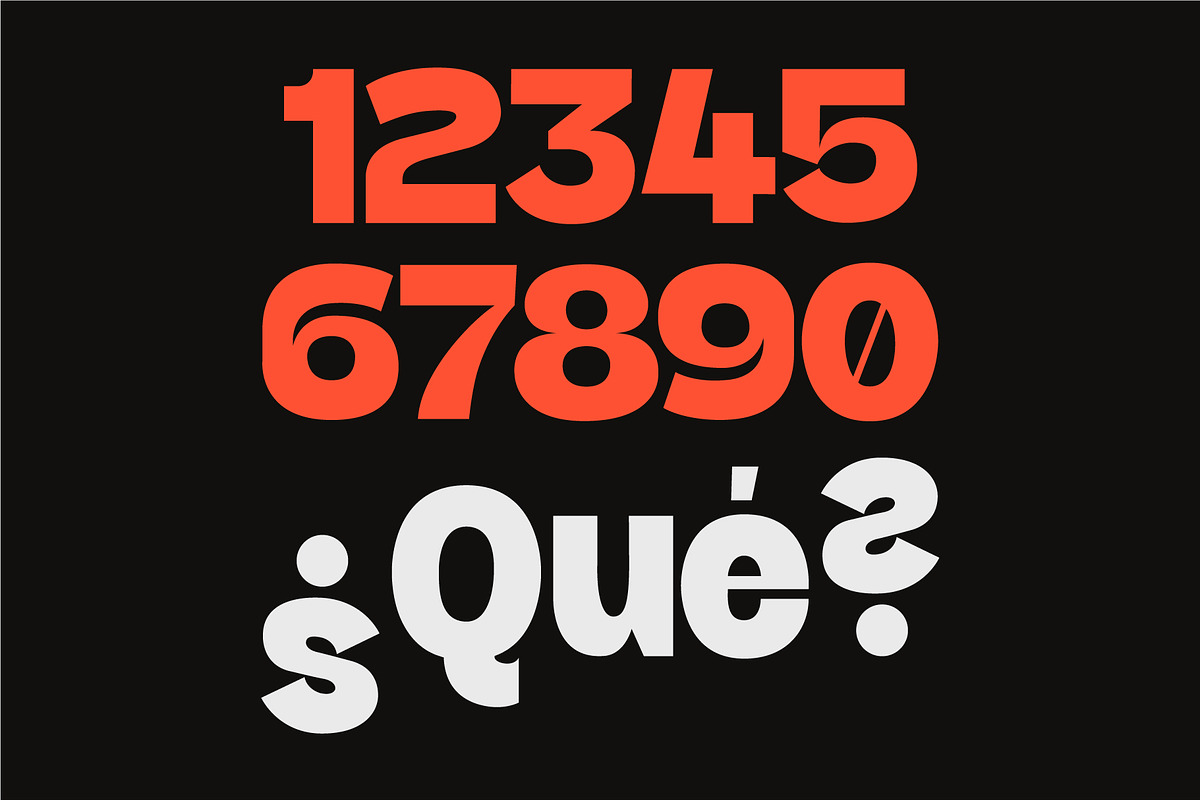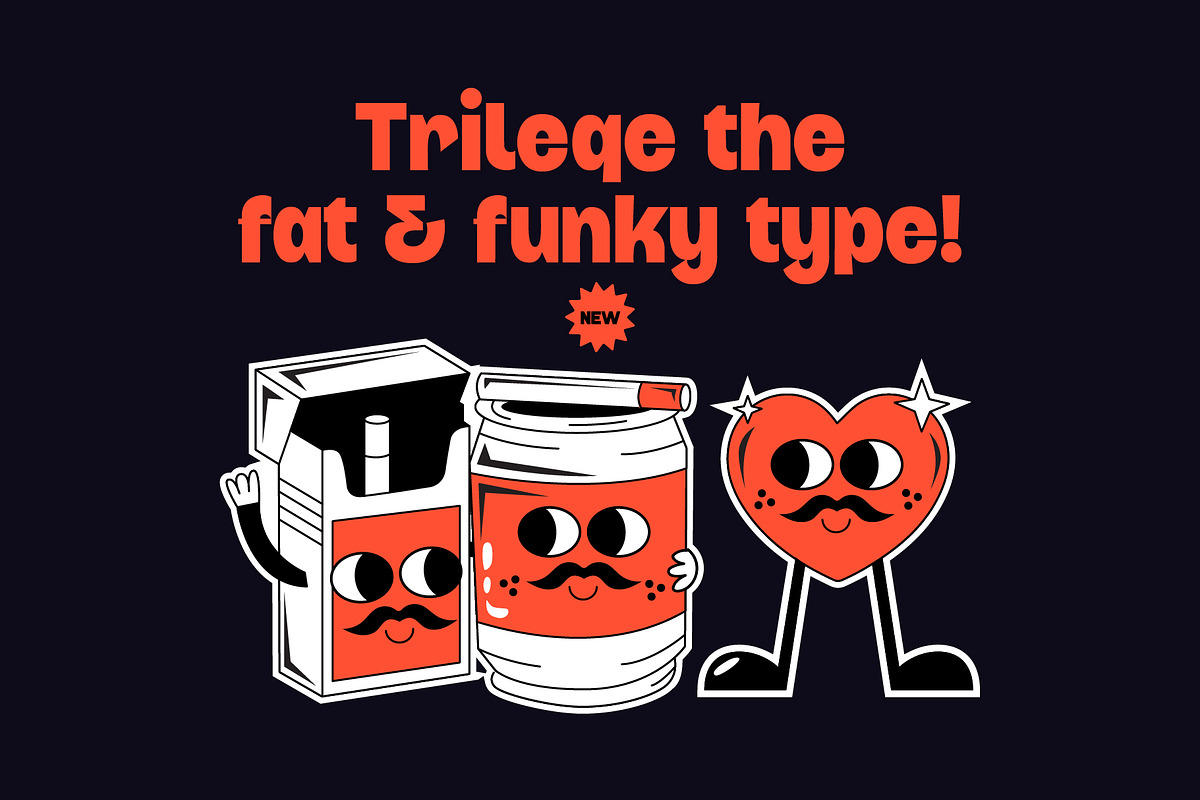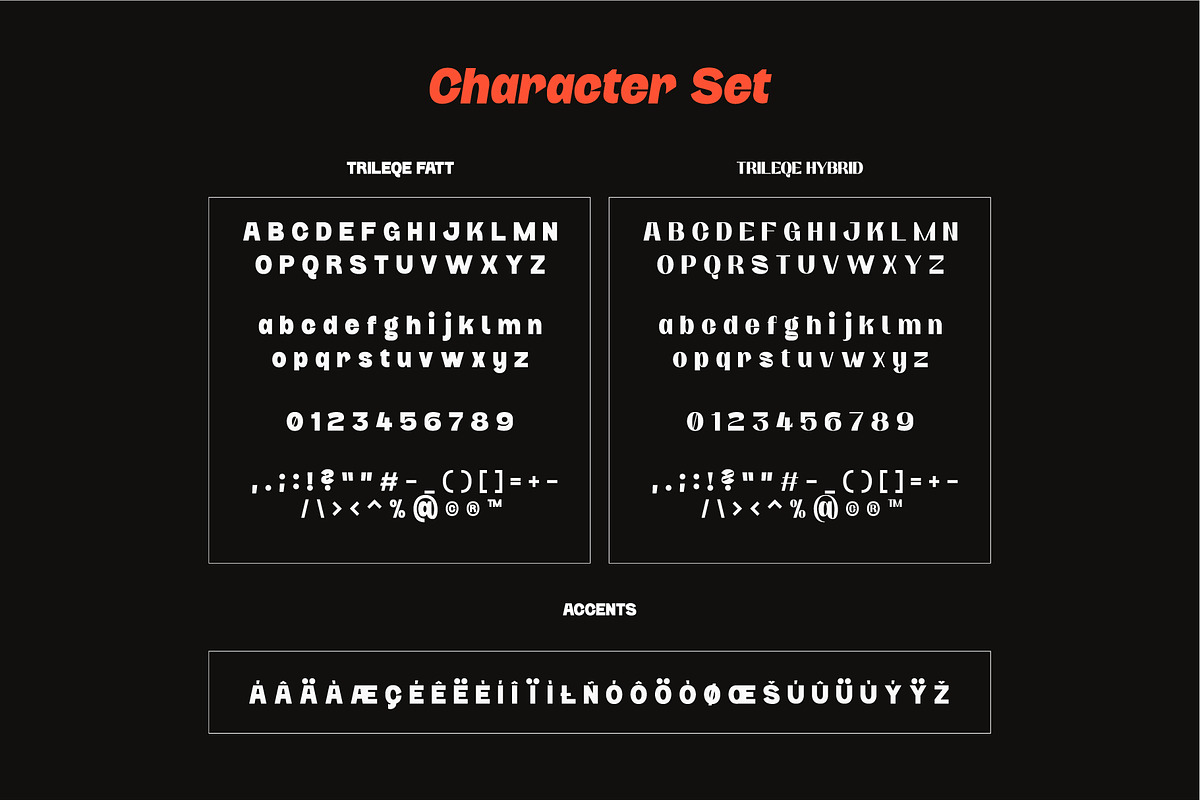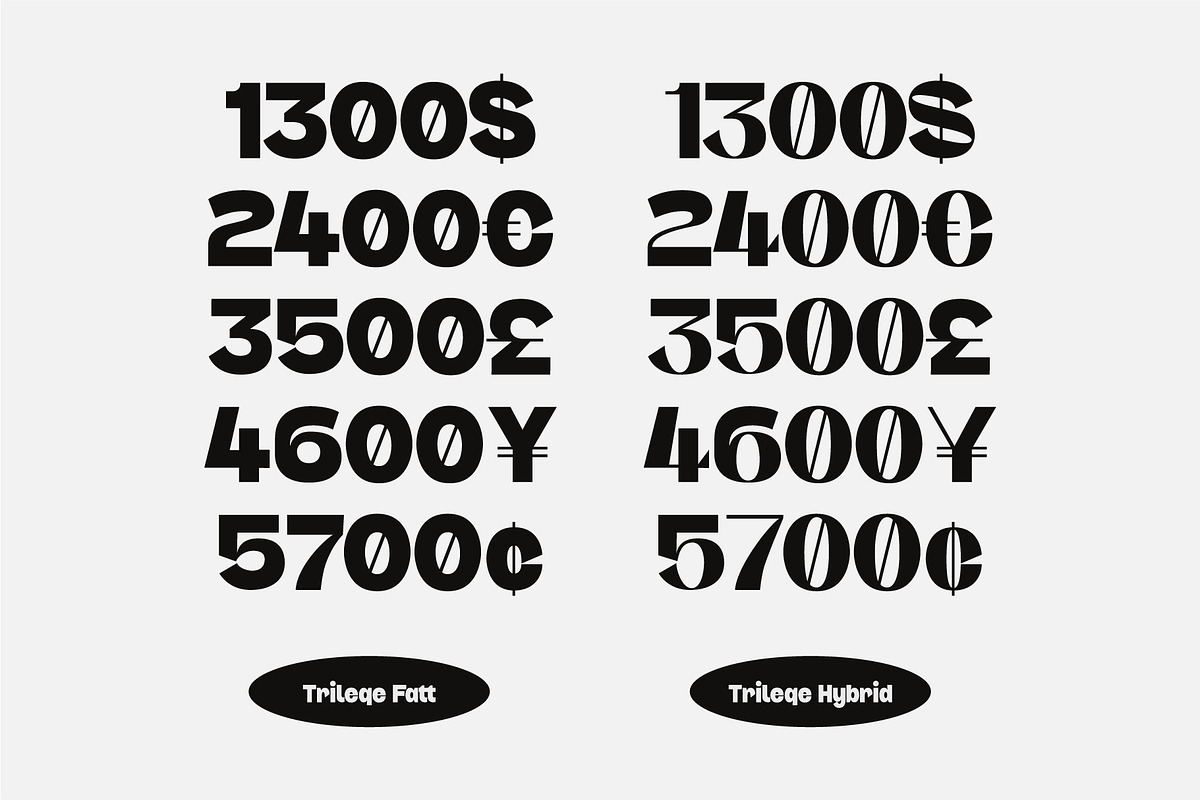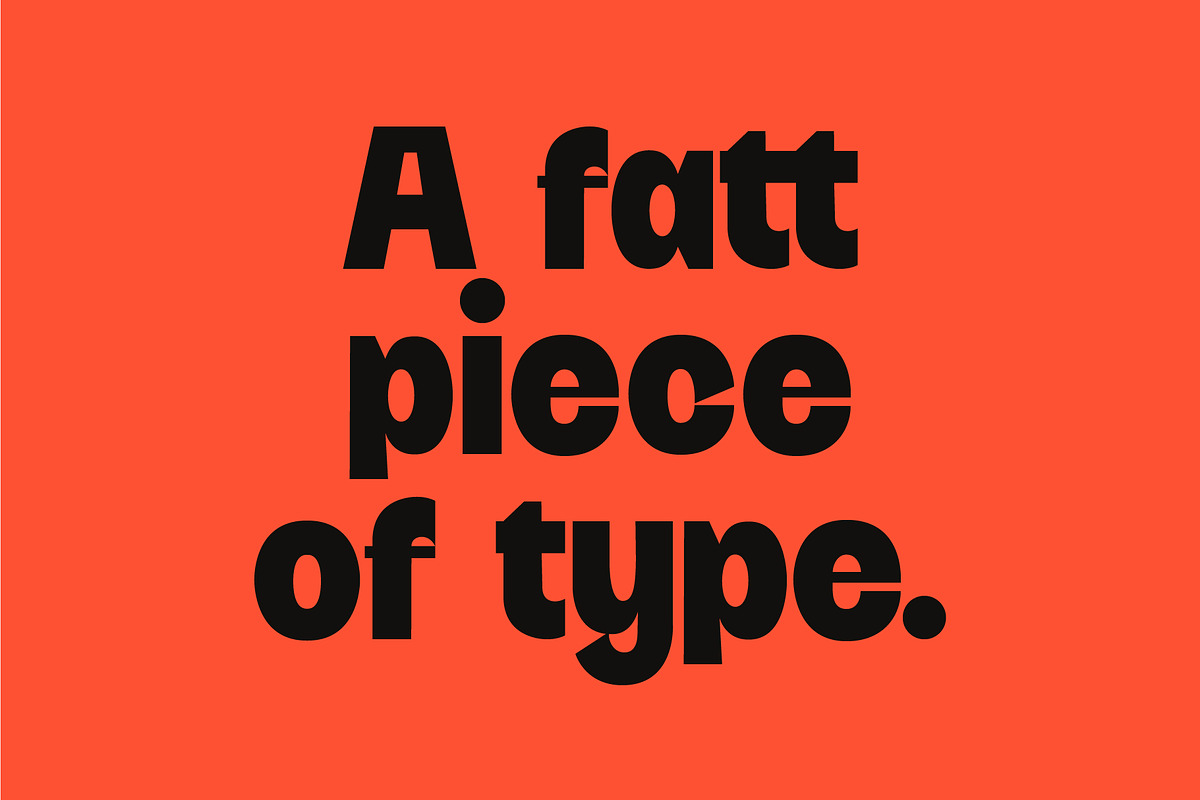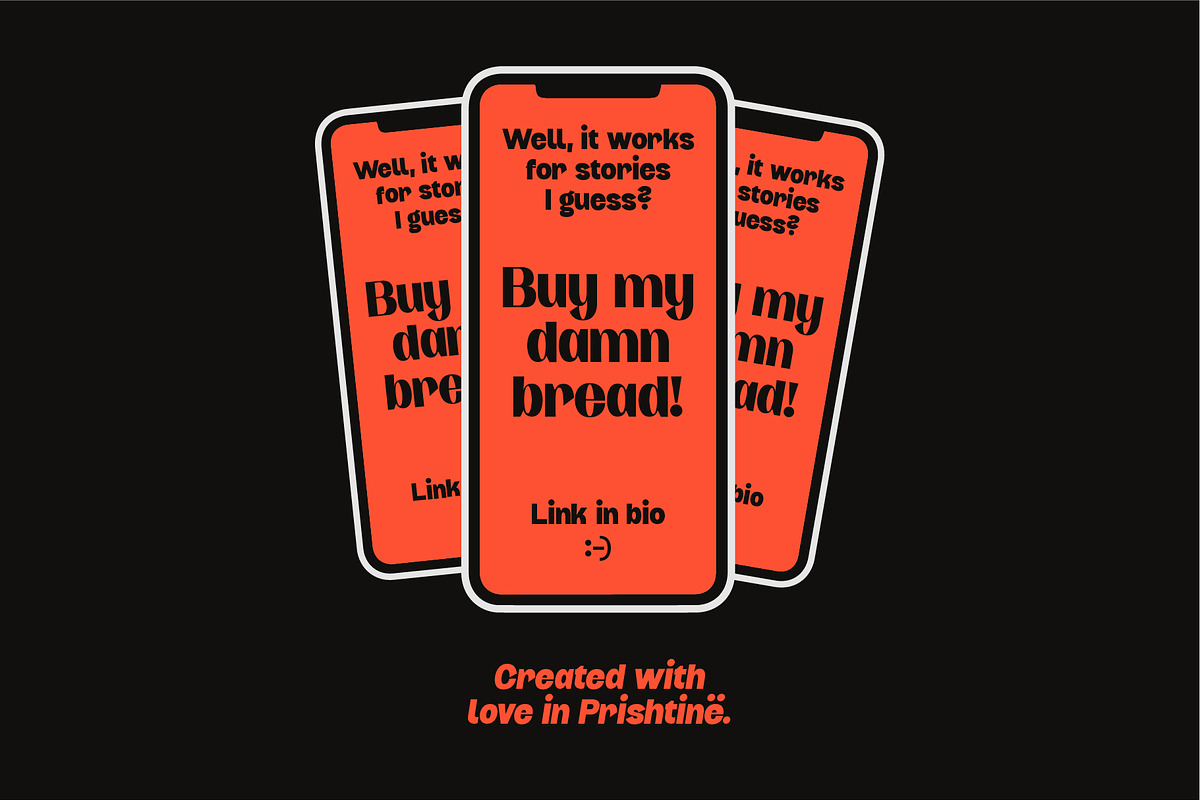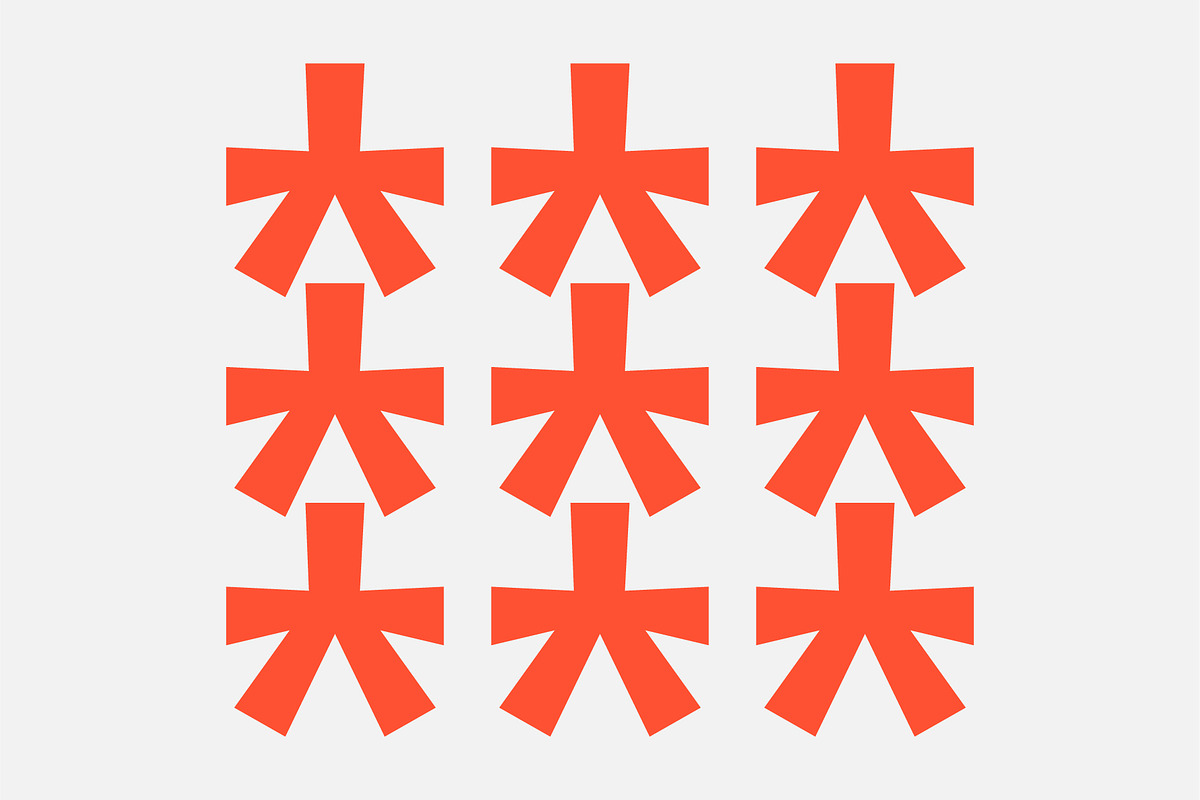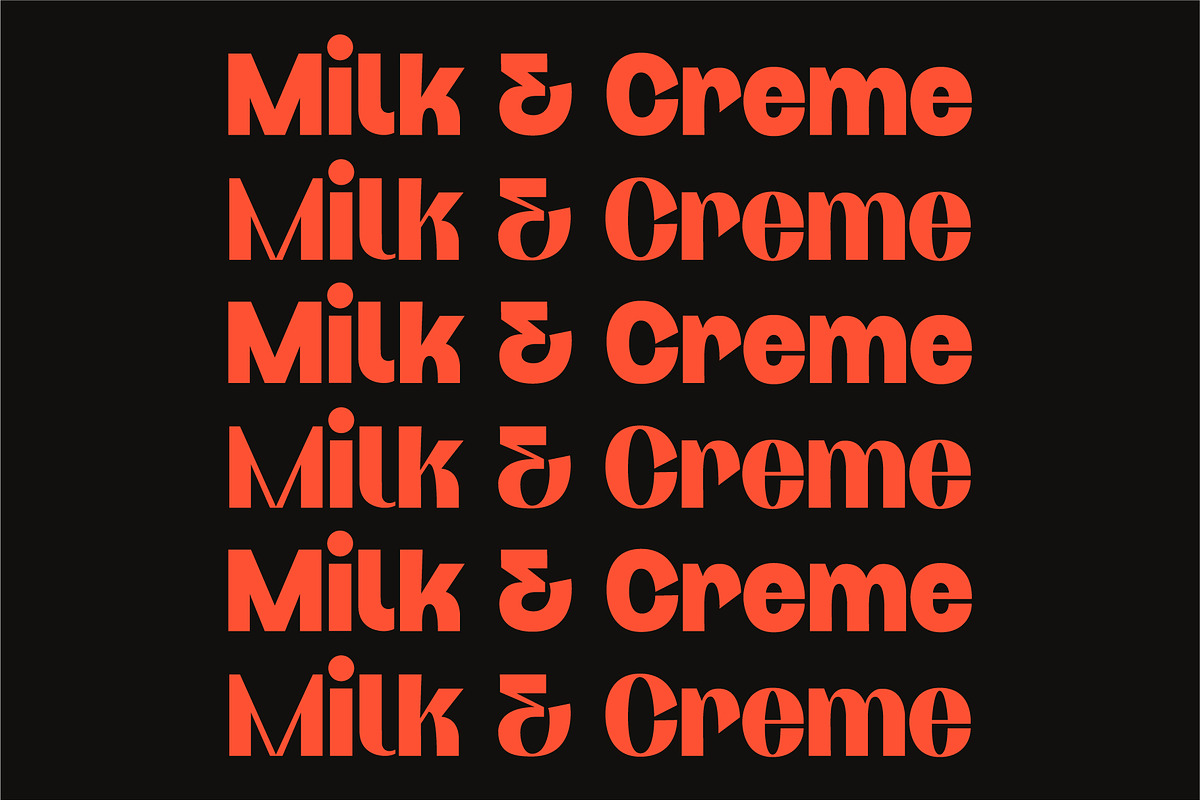
Trileqe - Fat Type
A sticky, tasty, fat type. But the fat part is mixed, we can call it a hybrid.
Trileqe the typeface! A pretty fat one, with quite some different styles.
Available in Fatt & Fatt Italic with the opposing foe, the Hybrid & Hybrid Italic.
Inspired by the one and only Trileqe, a very tasty dessert.